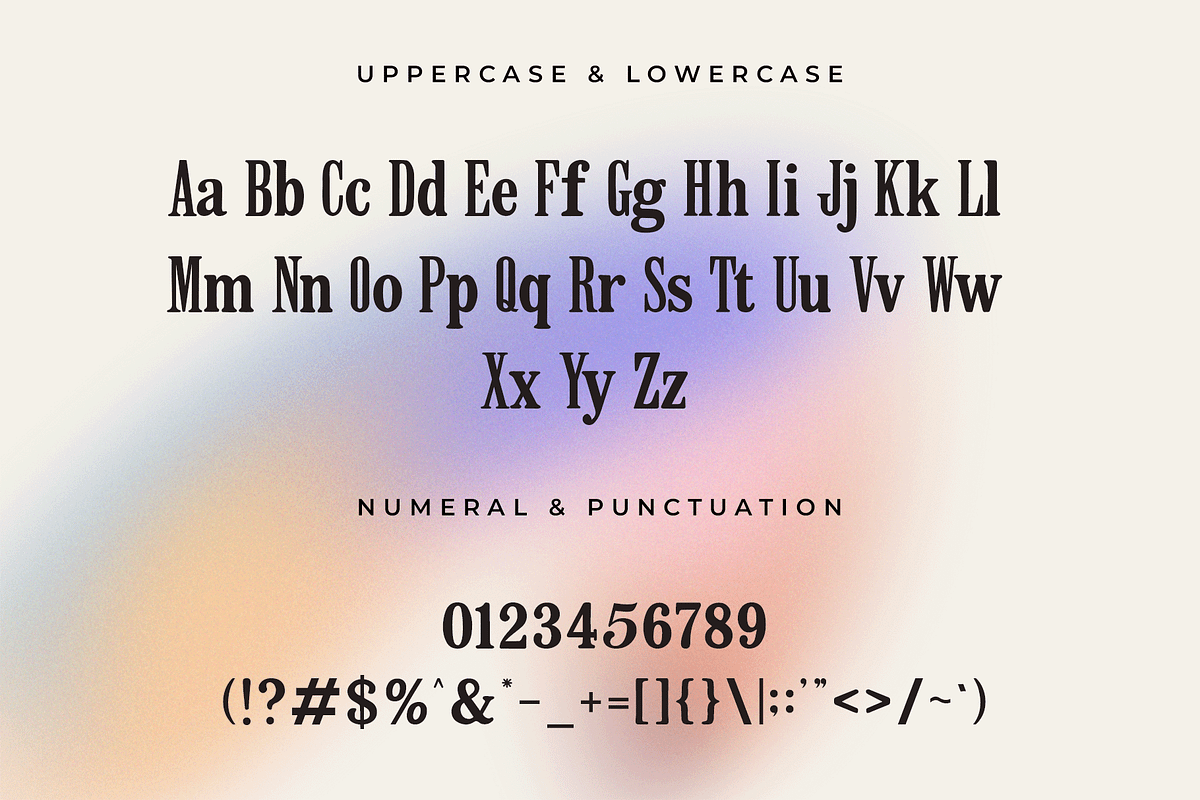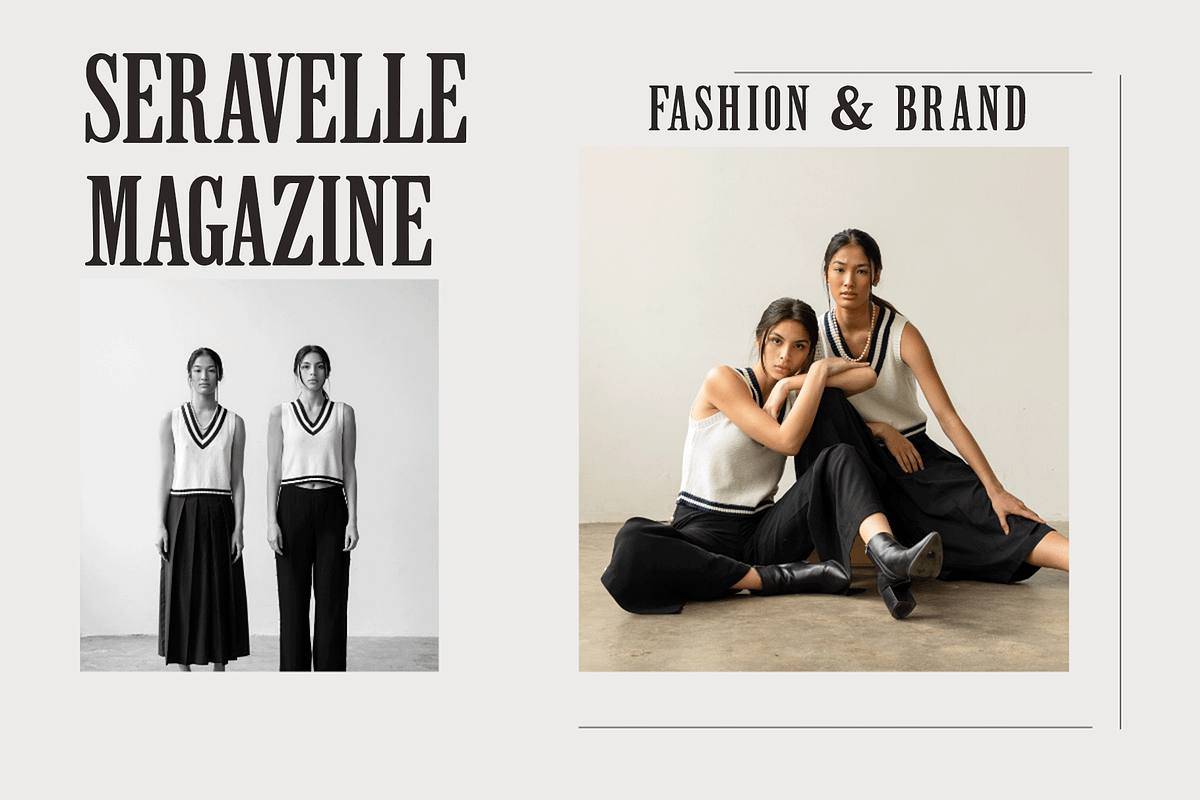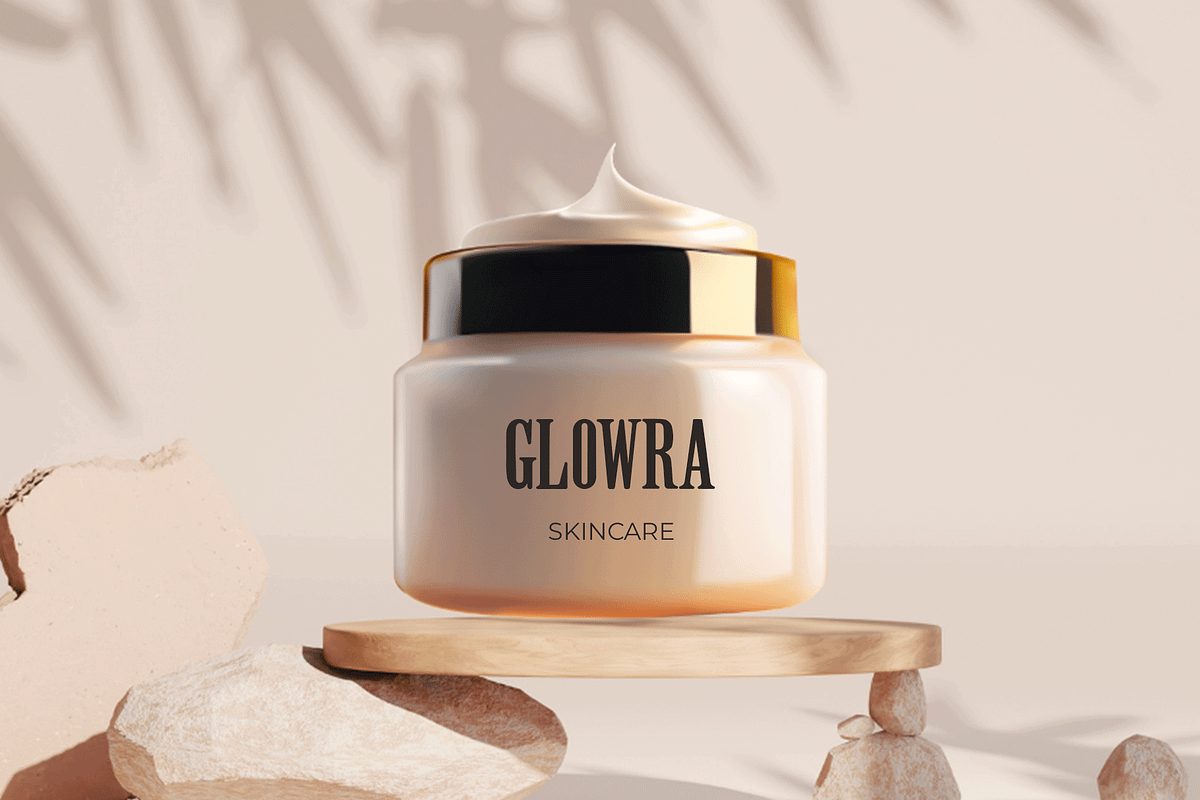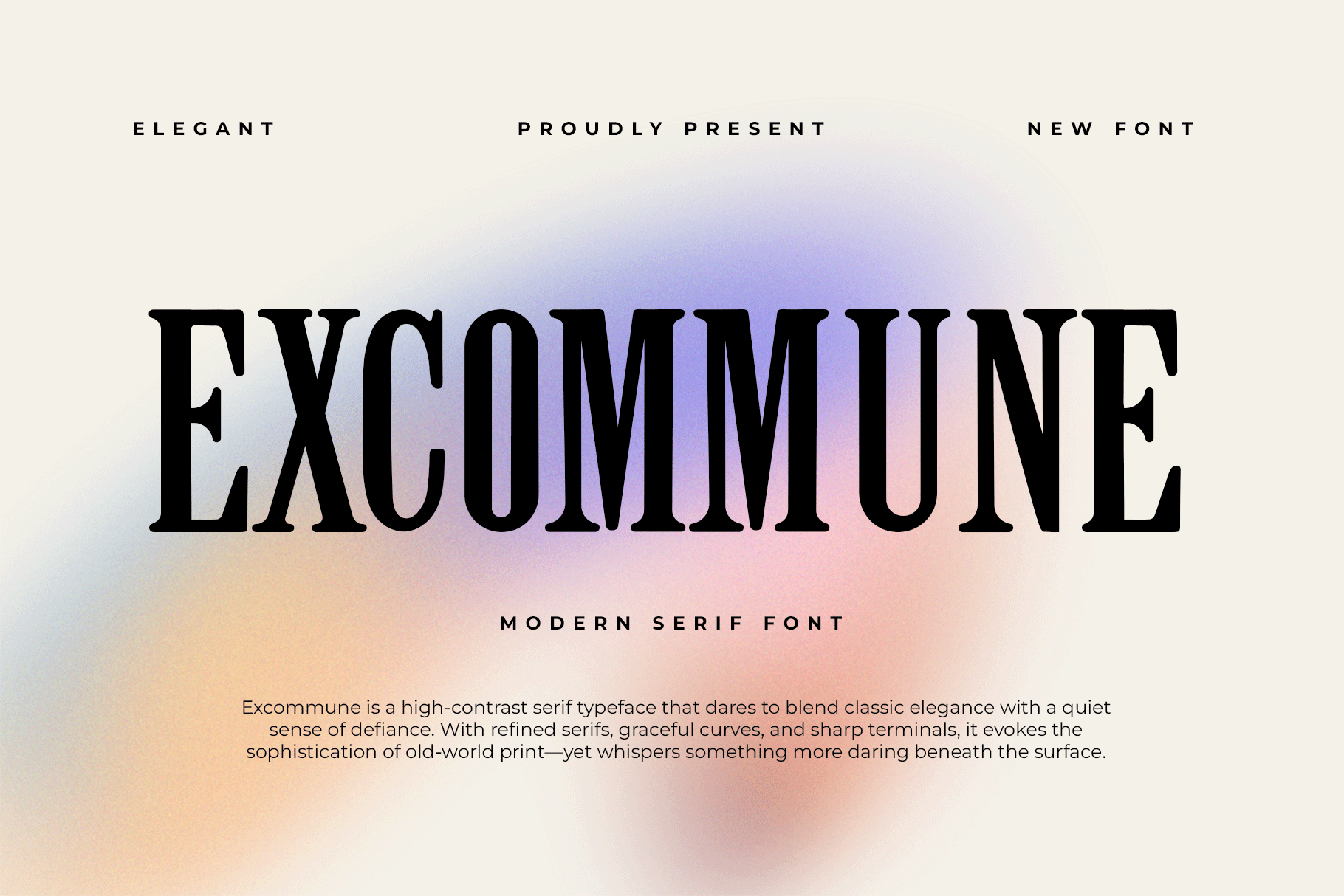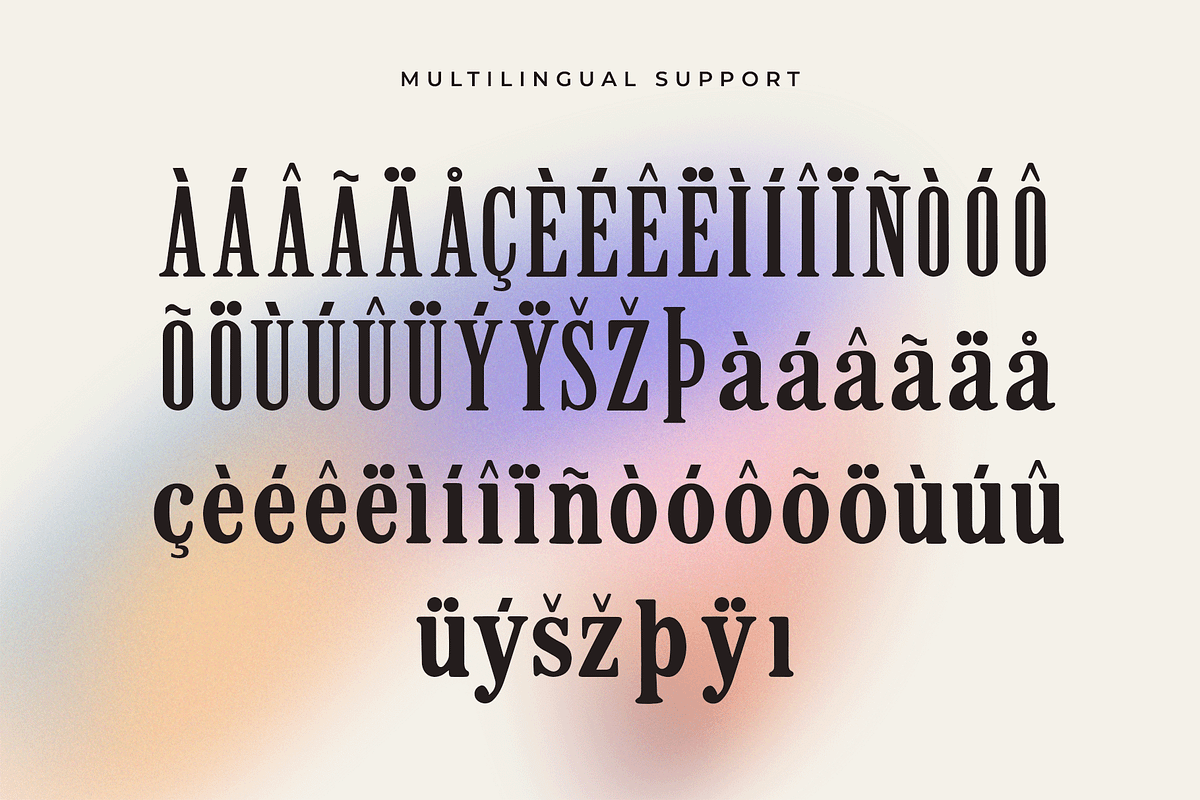
Excommune – Modern Serif Font
Excommune is a modern serif font that masterfully blends classic elegance with contemporary flair. Featuring sharp serifs, refined curves, and strong contrast, this typeface brings sophistication and clarity to every project. It's perfect for luxury branding, editorial layouts, packaging design, and bold headlines that demand attention.
Crafted for designers who seek both style and readability, Excommune stands out with its clean proportions and polished details. From logos and magazine titles to fashion campaigns and professional presentations, this font elevates every composition with confidence and poise.
It includes uppercase & lowercase letters, numerals, punctuation, and multilingual support, making it versatile for global use.
Whether you're aiming for classy, modern, or editorial aesthetics, Excommune is your go-to serif font to make a lasting impression.